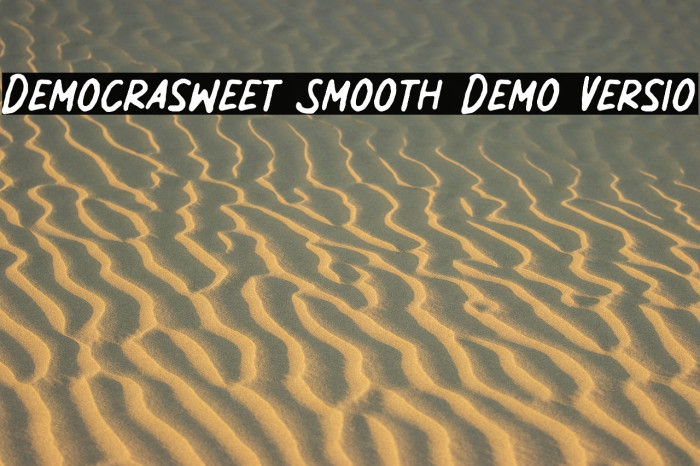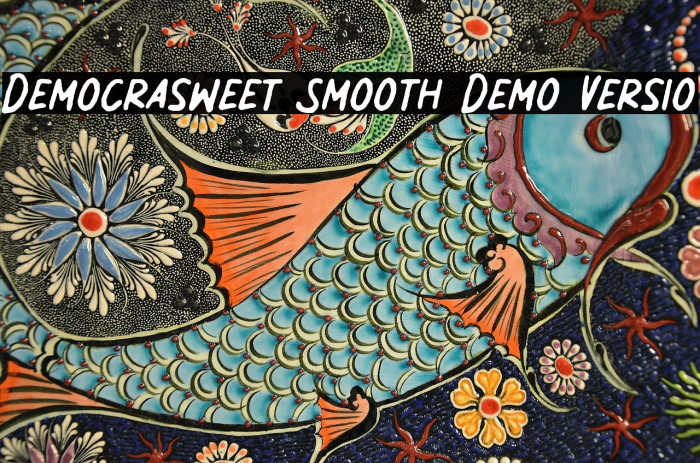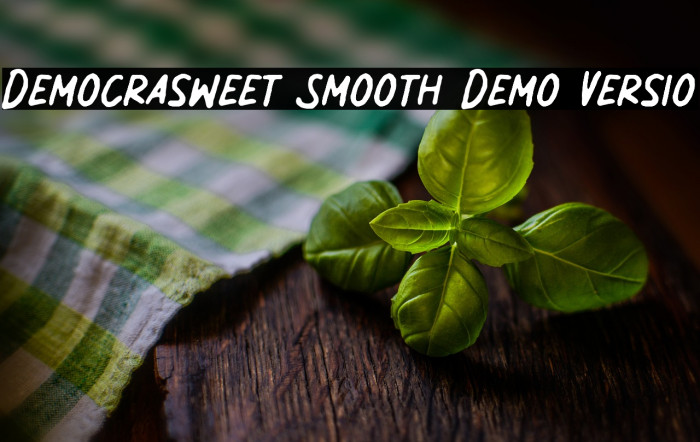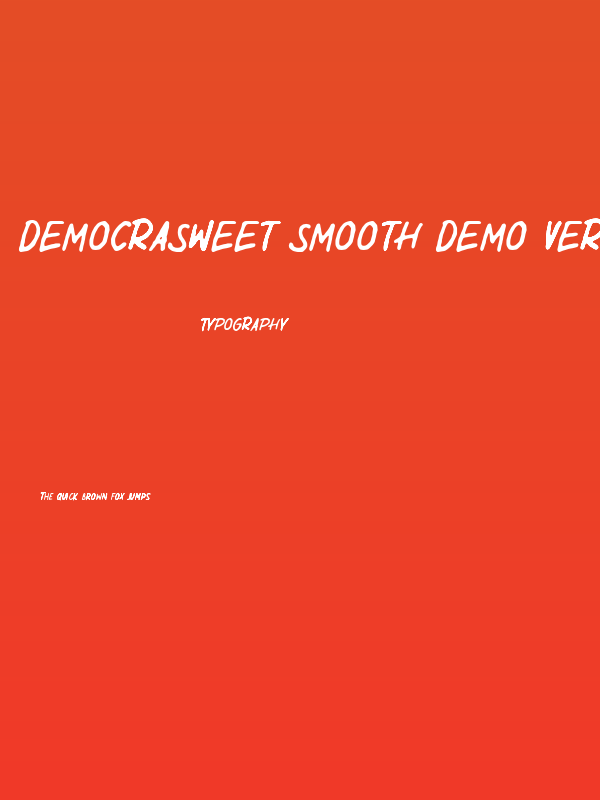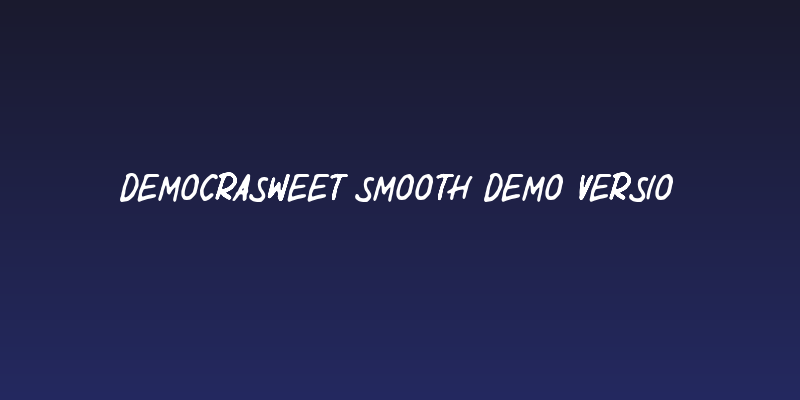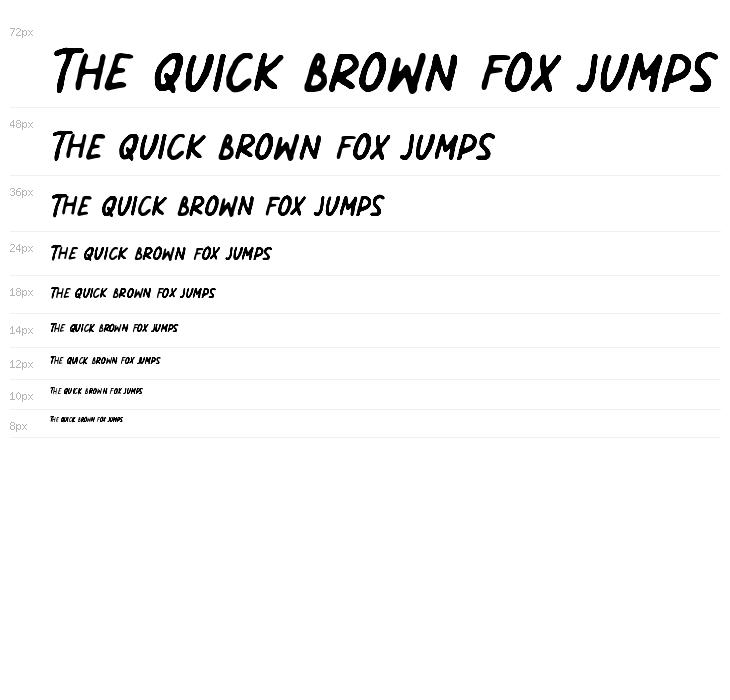
Democrasweet Smooth Demo Versio Font
Democrasweet Smooth Demo Versio Description
This font features a playful and energetic handwritten style, characterized by its smooth, flowing lines and slightly irregular shapes. The letters are bold and dynamic, with a casual yet confident appearance. The uppercase and lowercase letters maintain a consistent style, while the numerals and special characters complement the overall design. This font exudes a friendly and approachable vibe, making it suitable for a variety of creative projects.